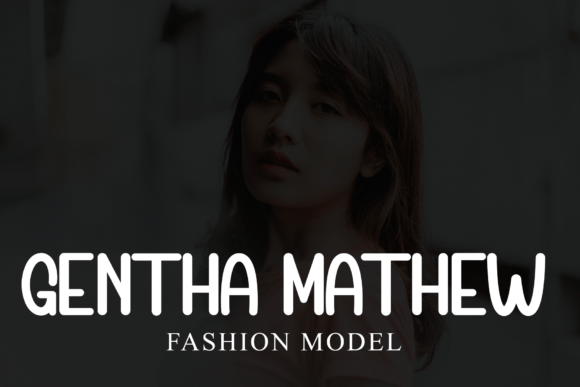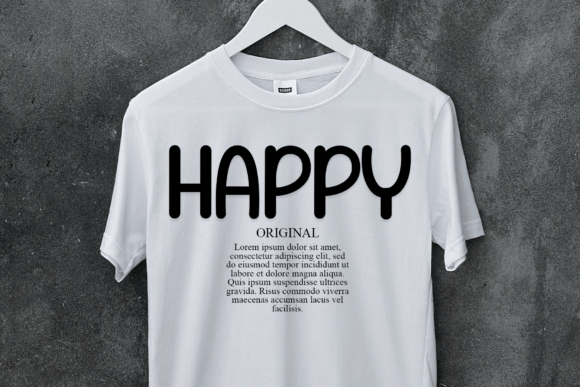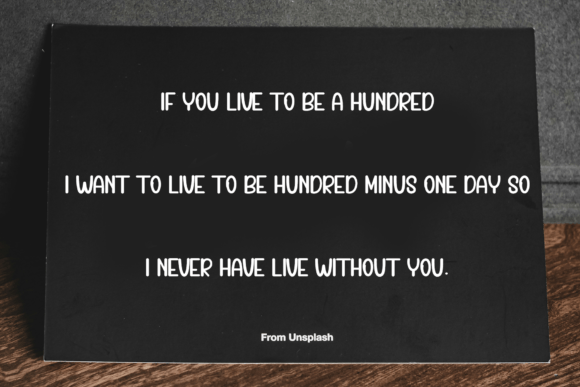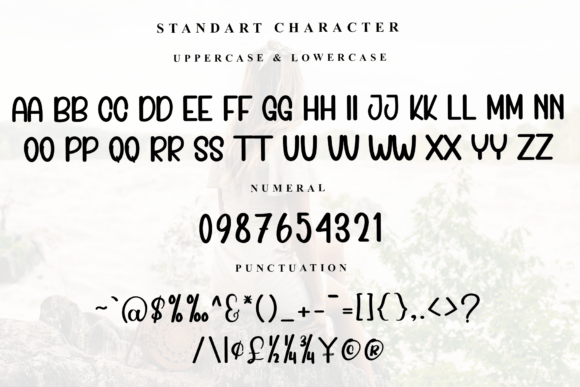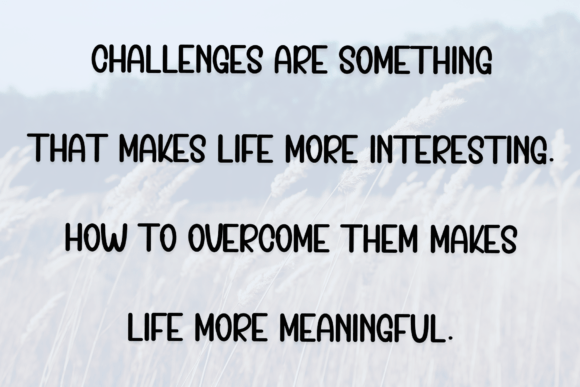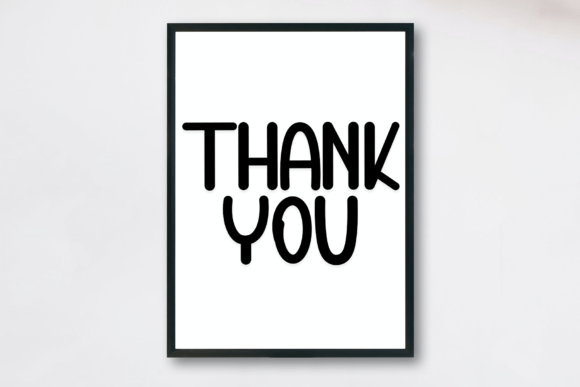
The Perfect Font to Get You in the Holiday Spirit
As I sat down at my desk, surrounded by twinkling lights and the faint scent of hot cocoa, I knew I was in the mood to create something special. I wanted to infuse my design with the magic of the holiday season, and that’s when I remembered the Groovy Font – a festive and happy typeface that captures the essence of winter wonderland.
This delightful font is more than just a pretty face; it’s a valuable tool for designers looking to add a touch of charm to their projects. With its decorative elements and unique flair, the Groovy Font is perfect for greeting cards, gift labels, and holiday-themed projects. And with its PUA coding, you can easily access all the amazing glyphs and ligatures that make it truly special.
Groovy Font Key Features
- Unique Characteristics: The Groovy Font features a unique blend of modern and vintage elements, with a distinctive flair that sets it apart from more traditional fonts.
Groovy Font Review
Overall, I was excited to dive into the Groovy Font and see what it had to offer. And while it’s not without its flaws, I do think there are some great things about it.
- Unique aesthetic: Groovy Font has a really fun and playful vibe that’s hard to find in other fonts. It’s perfect for anything that needs a bit of whimsy.
- Wide range of weights: I appreciate that Groovy Font comes in a variety of weights, from super light to super bold. This makes it easy to customize the look to fit your needs.
- Good legibility: Even at smaller sizes, Groovy Font is easy to read, which is essential for any font.
- Limited language support: Unfortunately, Groovy Font doesn’t support many languages, which might limit its use in certain projects.
- Not ideal for body text: While Groovy Font is great for headlines and titles, it’s not the best choice for large blocks of body text. It can start to feel overwhelming.
Groovy Font is a fun and playful font that’s perfect for adding a bit of personality to your projects. While it’s not without its limitations, I think it’s a great choice for anyone looking for a unique aesthetic.
Getting the Most Out of Groovy Font
To get the most out of Groovy Font, use it in bold or italic styles to add emphasis to your text.
Experiment with different font sizes and colors to create a unique visual effect.
Groovy Font is perfect for creating eye-catching headings and titles.
Use it in social media graphics, flyers, and posters to add a touch of personality.
Experiment with different font combinations to create a unique and memorable brand identity.